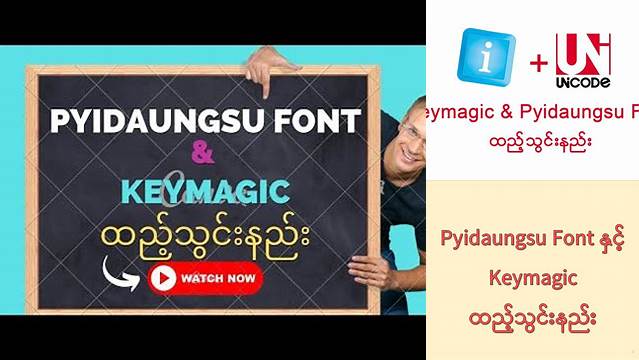
Hey guys! Are you looking for a way to type in Burmese? Want to get your hands on the Pyidaungsu font and Keymagic? You're in the right place! This article is your ultimate guide to getting both of these essential tools completely free of charge. We'll dive into everything you need to know, from understanding what these tools are to how to download and install them on your computer. So, grab a cup of coffee, and let's get started on unlocking the world of Burmese typing! Whether you're a student, a writer, or just someone interested in exploring a new language, having the right tools is super important. The Pyidaungsu font ensures that your Burmese text looks amazing, and Keymagic makes typing Burmese a breeze. We'll also cover some troubleshooting tips and answer some common questions to make sure you're all set. Let's break down everything you need to know to get up and running with Pyidaungsu and Keymagic without spending a dime. Are you ready to begin? Okay, let's do it!
H2: Understanding the Pyidaungsu Font: What Makes it Special?
Alright, before we jump into the download, let's talk a bit about the Pyidaungsu font. What exactly is it, and why is it so important? Well, the Pyidaungsu font is a specifically designed font for the Burmese language. Unlike standard fonts that might not display Burmese characters correctly or beautifully, the Pyidaungsu font ensures that your Burmese text looks perfect. Think of it as the secret ingredient that makes your Burmese typing experience seamless and visually appealing. It's all about the details, right? With the right font, your text is not only readable, but also beautiful. So, what sets the Pyidaungsu font apart? First off, it's designed to accurately represent the complex characters and diacritics found in the Burmese language. This means you won't have to worry about missing or incorrectly displayed glyphs. Each character is crafted with precision, ensuring that the visual integrity of your text is maintained. Secondly, the font is optimized for readability. This means that the designers have paid attention to the spacing, weight, and overall design of the characters to make sure they're easy on the eyes, whether you're reading a long document or just a quick message. Lastly, and perhaps most importantly, the Pyidaungsu font is compatible with a wide range of software and operating systems. You won't have to worry about compatibility issues, which can be a real headache when you're trying to get things done. So, to summarize, the Pyidaungsu font is a must-have for anyone who wants to type in Burmese, ensuring accuracy, readability, and visual appeal. It's the foundation upon which all your Burmese text will be built. Getting the right font makes a huge difference, trust me. Getting your hands on this awesome font is the first step towards fluency. We will get you on the right track on how to get it for free below!
H2: Why Keymagic is Your Best Friend for Burmese Typing
Now that we've covered the Pyidaungsu font, let's talk about Keymagic. What's the deal with this tool, and why do you need it? Well, Keymagic is a keyboard layout and input method editor (IME) designed specifically for typing Burmese. Without it, typing in Burmese can be a real challenge, as you'd have to memorize complex keyboard shortcuts or rely on clunky workarounds. Keymagic makes it super simple by providing a user-friendly keyboard layout that lets you type Burmese characters just like you would in English. Think of it as the bridge that connects your keyboard to the Burmese language. It translates your keystrokes into the correct Burmese characters, making the whole process effortless. So, why is Keymagic so important? First and foremost, it simplifies the typing process. No more struggling to find the right characters or memorizing complicated key combinations. Keymagic provides a layout that's intuitive and easy to learn, saving you time and frustration. Secondly, Keymagic supports a wide range of input methods, including phonetic typing. This means that you can type Burmese words phonetically, and Keymagic will automatically convert them into the correct Burmese characters. It is a great feature, especially if you're still learning the language. Moreover, Keymagic is highly customizable. You can adjust the keyboard layout to suit your preferences, making the typing experience even more comfortable. It is all about personalizing your experience. In addition, Keymagic is compatible with various operating systems and applications, so you won't have to worry about compatibility issues. This ensures that you can use Keymagic wherever you go. If you are looking to become fluent, you need this tool. It's a game changer, believe me. Now, let's get to the good stuff – how to get Keymagic for free!